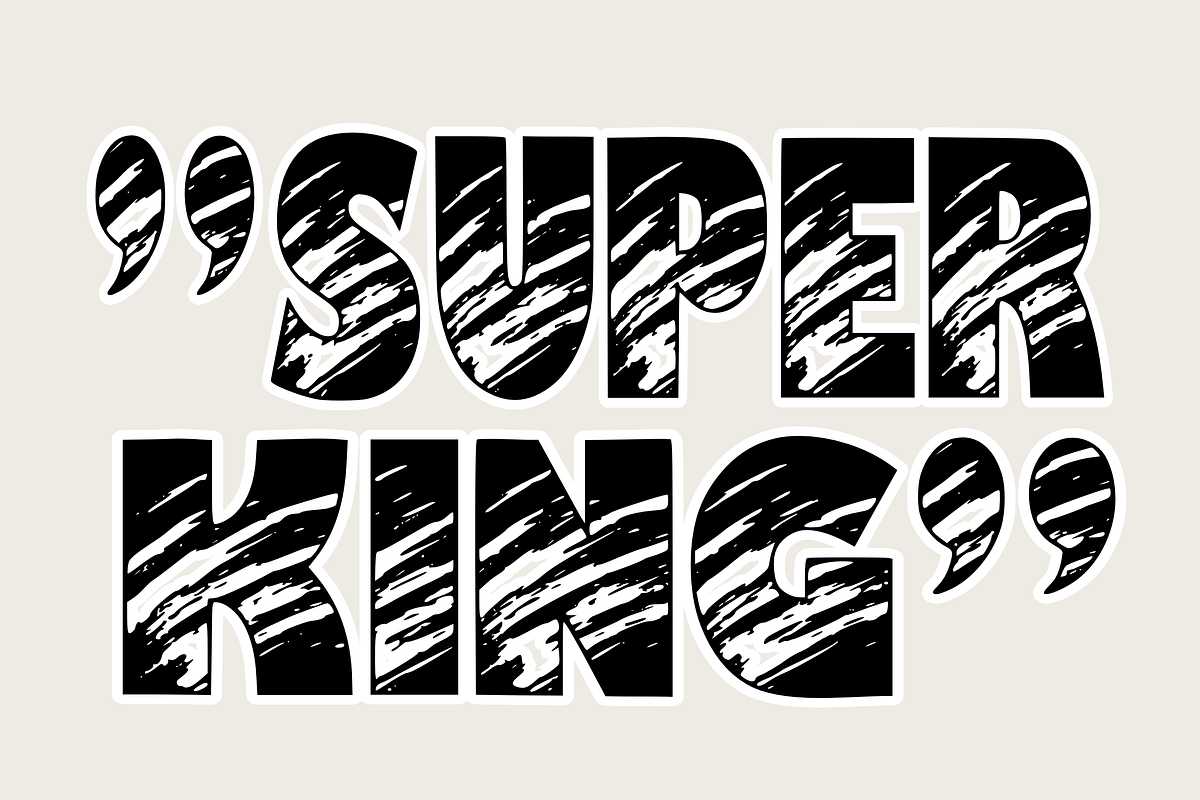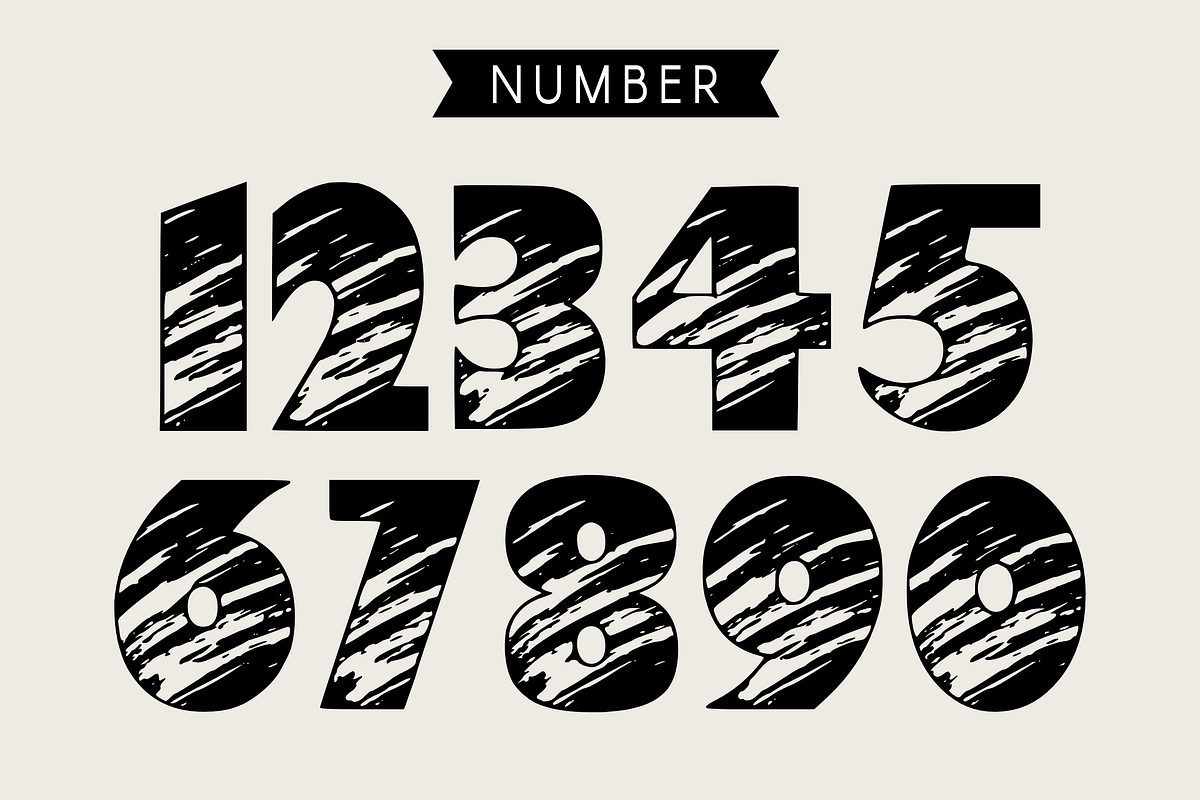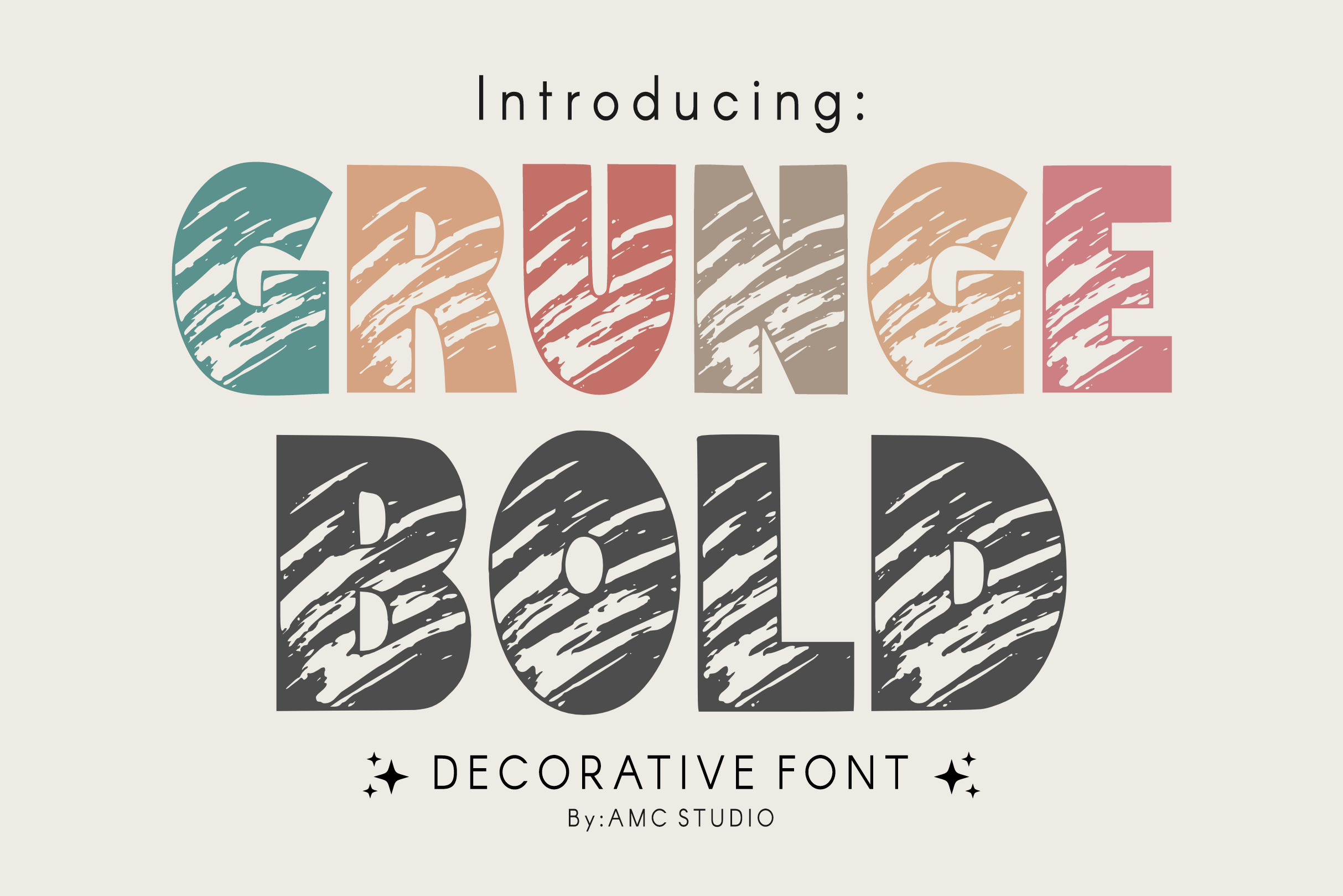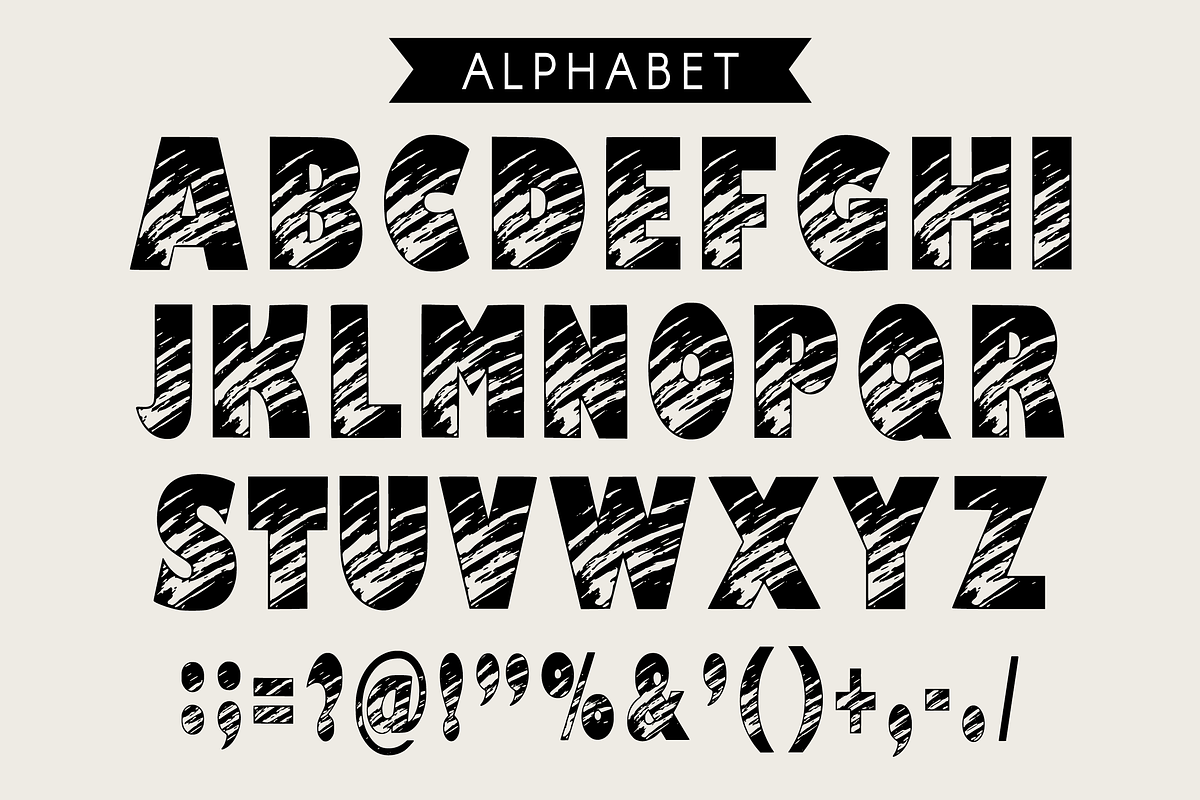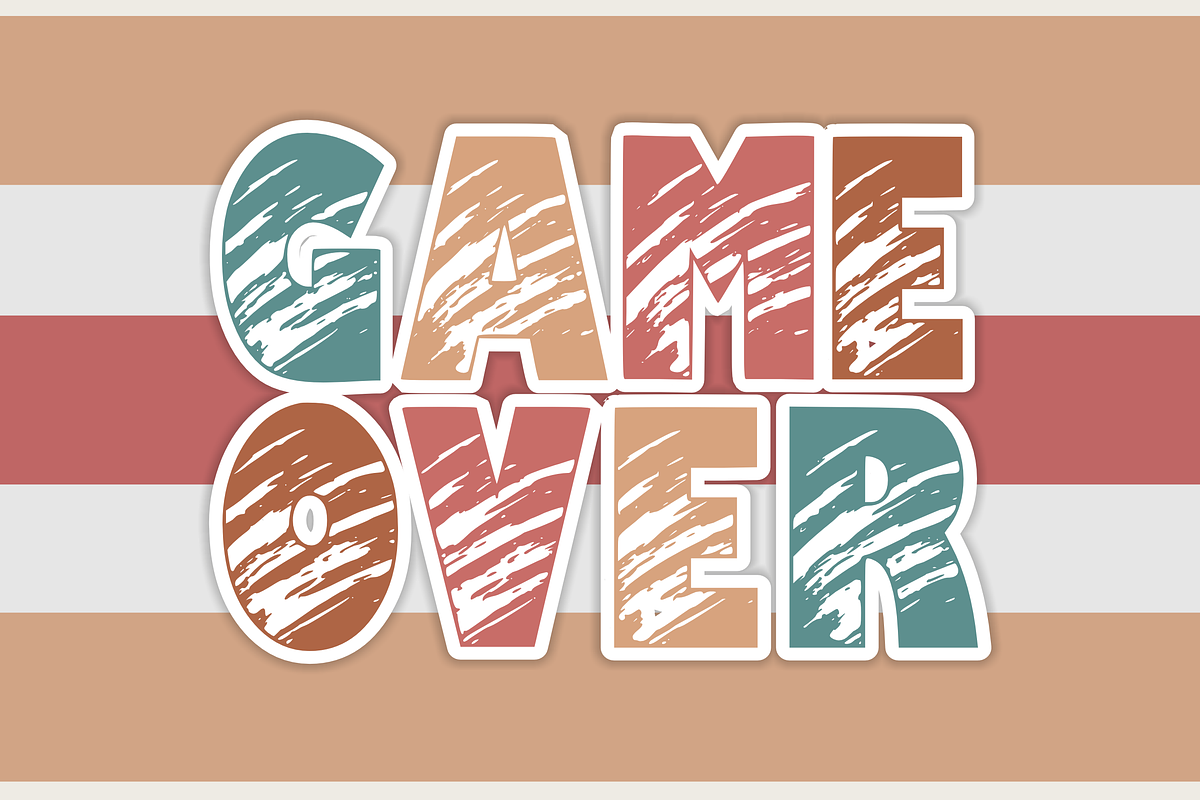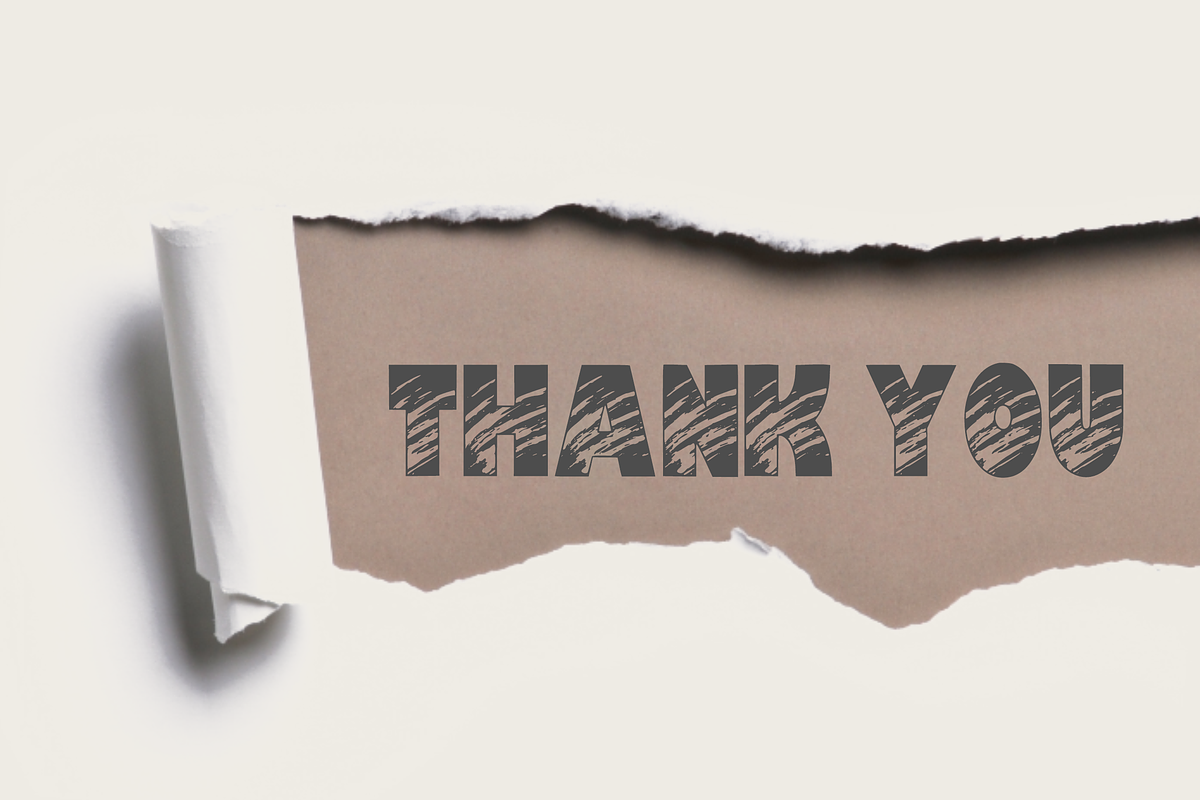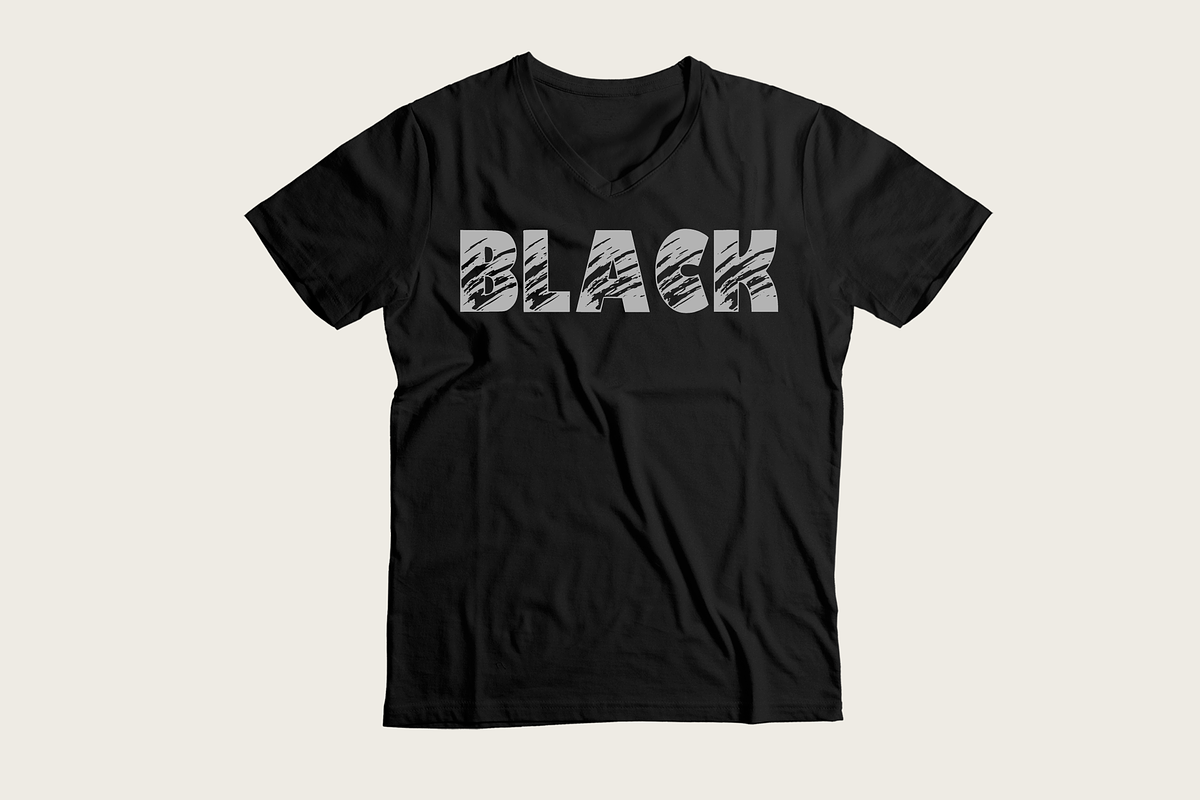
Grunge Bold - Grunge Font Types
Grunge Bold is a powerful decorative font featuring bold letterforms with rough, distressed textures and strong visual impact 🖌️⚡ Inspired by grunge aesthetics and raw design energy, this font delivers a rugged, artistic, and expressive look.
Perfect for posters, album covers, branding, apparel, headlines, logos, and creative projects, Grunge Bold helps your designs stand out with character and attitude.
Add bold texture and raw personality to your designs with Grunge Bold 💥🎨